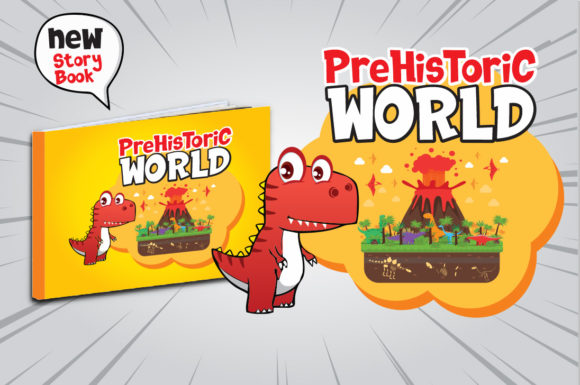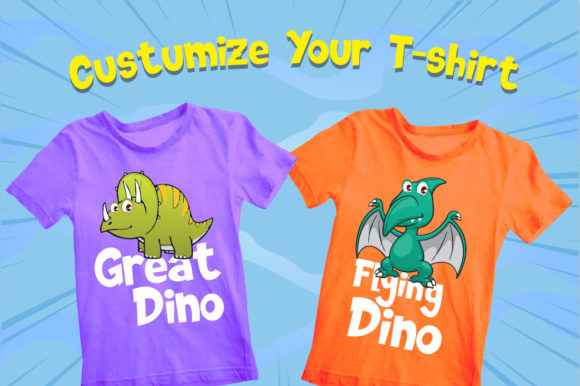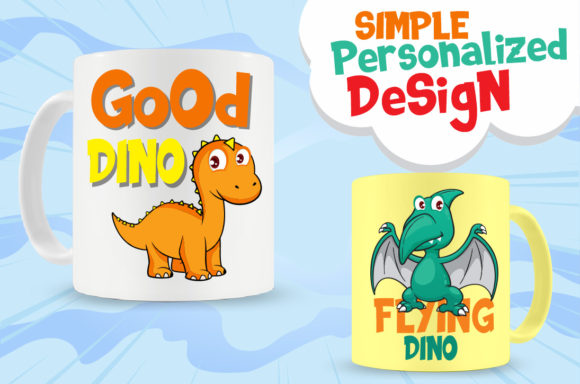
Introduction to Dinotoons Font
As a designer, you’ve probably been there – staring at a blank canvas, trying to come up with the perfect font to bring your creative vision to life. The struggle is real, but fear not, because we’ve got just the thing to make your design project shine: the Dinotoons Font.
This adorable display font is more than just a pretty face – it’s a game-changer for designers looking to add a touch of whimsy and personality to their designs. With its high-quality illustrations and transparent background, you can easily customize it to fit your needs and style. Whether you’re working on a packaging design, creating a logo, or just need a font for a social media post, the Dinotoons Font is the perfect design resource to elevate your creative project.
- Unique, playful design that adds a fun touch to any creative project or design resource
Honest Review: Dinotoads isn’t actually called that, but rather Dinotoons Font
As a designer, I’m always on the lookout for high-quality design resources to enhance my creative projects. The Dinotoons Font is one such resource that caught my attention, and I decided to give it a try. After experimenting with it, I’m excited to share my honest review with you.
What works well: ✨ The Dinotoons Font has a unique and playful style that’s perfect for projects that require a fun and whimsical touch. The font is highly customizable, allowing you to adjust the size, color, and opacity to suit your needs. I also appreciate the transparent background feature, which makes it easy to integrate with other design elements.
Overall impression: I’m impressed with the Dinotoons Font’s potential to elevate my creative projects. With its unique style and high-quality design, it’s a great addition to any designer’s toolkit. However, it’s essential to be aware of the limitations and ensure that you’re using it in compliance with the licensing terms.
- Unique and playful style
For the best results, use Dinotoons Font in conjunction with a transparent background and high-quality graphics. This will give your design a professional and creative touch. You can also experiment with different font sizes and colors to add visual interest to your project.
Dinotoons Font is ideal for creative projects such as logos, business cards, and presentations. It’s also a great design resource for social media graphics, flyers, and brochures. With its unique and playful style, Dinotoons Font is sure to add a touch of personality to any design project.